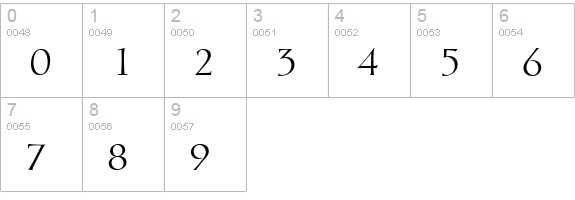
D730-Roman-Regular Font Details
D730-Roman-Regular is the standard, neutral variant in the D730 typeface family \xE2\x80\x94 well suited to general body text, paragraphs, and standard typographic work.
The D730-Roman-Regular font is an elegant and versatile typeface that exudes sophistication and style. Its timeless design makes it ideal for a wide range of projects, from branding to editorial design. With its clean lines and classic proportions, this font is sure to make a statement and elevate any design it is used in. What sets the D730-Roman-Regular font apart is not only its aesthetic appeal but also the fact that it is freely available to download at FontsMarket.com. This means that you can access this high-quality font without any cost, making it a valuable resource for designers and creatives looking to enhance their work with a touch of elegance. Whether you're working on a print project, digital design, or anything in between, the D730-Roman-Regular font is a versatile and reliable option that will help you achieve professional results with ease.